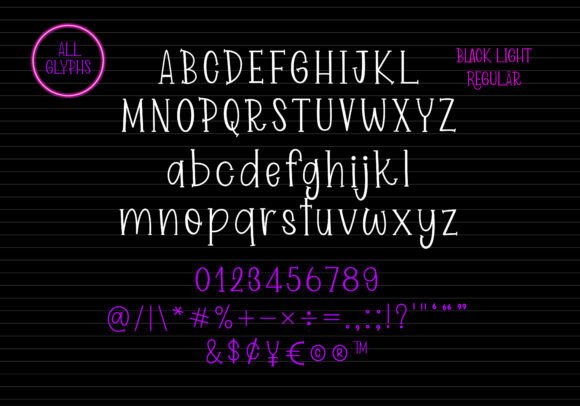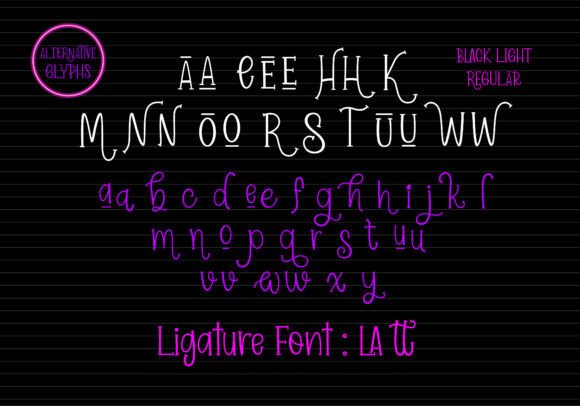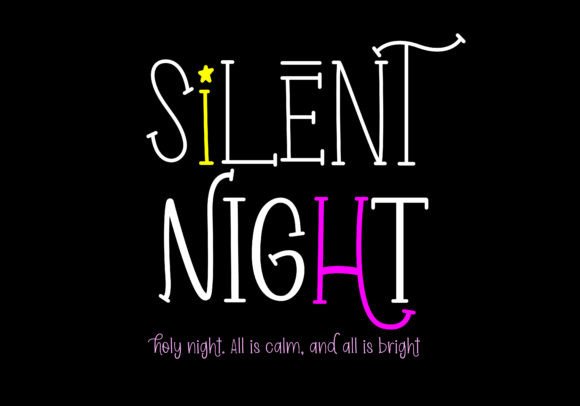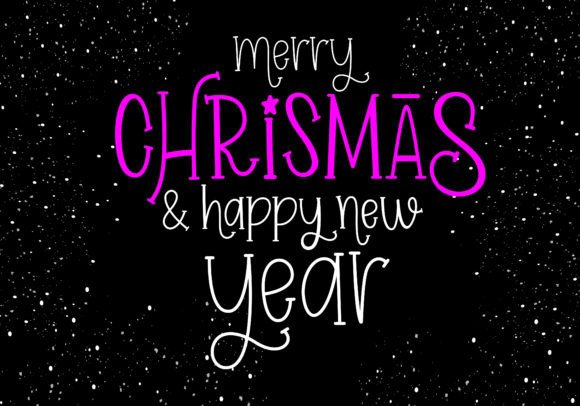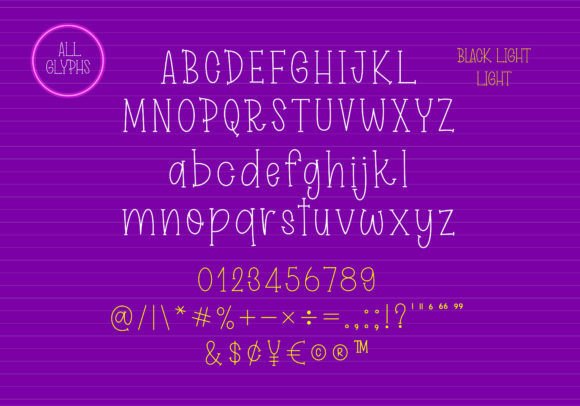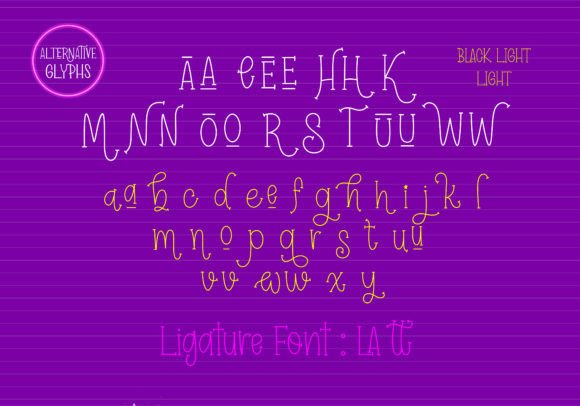
Introducing Black Light Font: A Sweet and Friendly Handwritten Delight
Are you on the hunt for a font that can add a touch of warmth and personality to your designs? Look no further than Black Light Font, a sweet and friendly handwritten font that’s perfect for a wide range of creative projects. With its natural and unique style, Black Light is incredibly versatile and can be used to create stunning designs that are sure to capture attention.
The Unique Style of Black Light Font
Black Light Font boasts a distinctive handwritten style that’s both elegant and approachable. Its flowing lines and gentle curves give it a friendly and approachable feel, making it perfect for designs that require a personal touch. Whether you’re working on a branding project, a wedding invitation, or a craft project, Black Light Font is sure to bring a smile to your audience’s faces.
One of the standout features of Black Light Font is its natural, organic feel. Unlike some fonts that can look stiff or contrived, Black Light has a relaxed, effortless quality that makes it feel like it was written just for you. This unique style makes it incredibly fitting for a large pool of designs, from rustic and vintage-inspired projects to modern and sleek designs.
The Possibilities are Endless with Black Light Font
The only limit to what you can create with Black Light Font is your imagination! This versatile font can be used for a wide range of projects, including:
- Craft projects, such as knitting or sewing patterns
- Blog and website design
Whether you’re a designer, crafter, or DIY enthusiast, Black Light Font is the perfect addition to your creative toolkit. Its flexibility and charm make it easy to use and adapt to your unique style and vision.
PUA Encoding: Making it Easy to Access Glyphs and Alternates
Black Light Font is PUA (Private Use Area) encoded, which means that you can access all the glyphs and alternates with ease. This encoding allows you to unlock the full potential of the font, giving you access to a wide range of characters, symbols, and swashes.
With PUA encoding, you can:
- Easily access alternate characters and glyphs
- Create custom combinations of letters and symbols
- Add unique touches to your designs
This feature makes it easy to get creative and experiment with different looks and styles, ensuring that your designs stand out from the crowd.
Why Designers and Crafters Love Black Light Font
So why do designers and crafters love Black Light Font? Here are just a few reasons:
- Unique style: Black Light Font has a one-of-a-kind style that’s both elegant and approachable.
- Versatility: This font can be used for a wide range of projects, from branding and packaging to crafting and DIY projects.
- Ease of use: With PUA encoding, accessing glyphs and alternates is a breeze.
- Flexibility: Black Light Font can be used to create a wide range of designs, from rustic and vintage-inspired to modern and sleek.
Whether you’re a seasoned designer or a crafty DIY enthusiast, Black Light Font is the perfect addition to your creative toolkit. Its unique style, versatility, and ease of use make it an essential font for anyone looking to add a touch of warmth and personality to their designs.